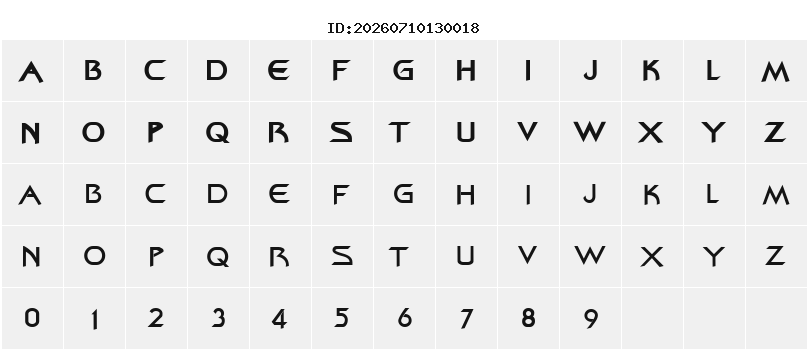
• Font Name: Federation
• Full Font Name: Federation DS9 Title
About Federation.ttf
Federation.ttf is a modern, elegant sans-serif font designed for ultimate readability and visual harmony. Perfect for branding, headlines, web design, and print materials.